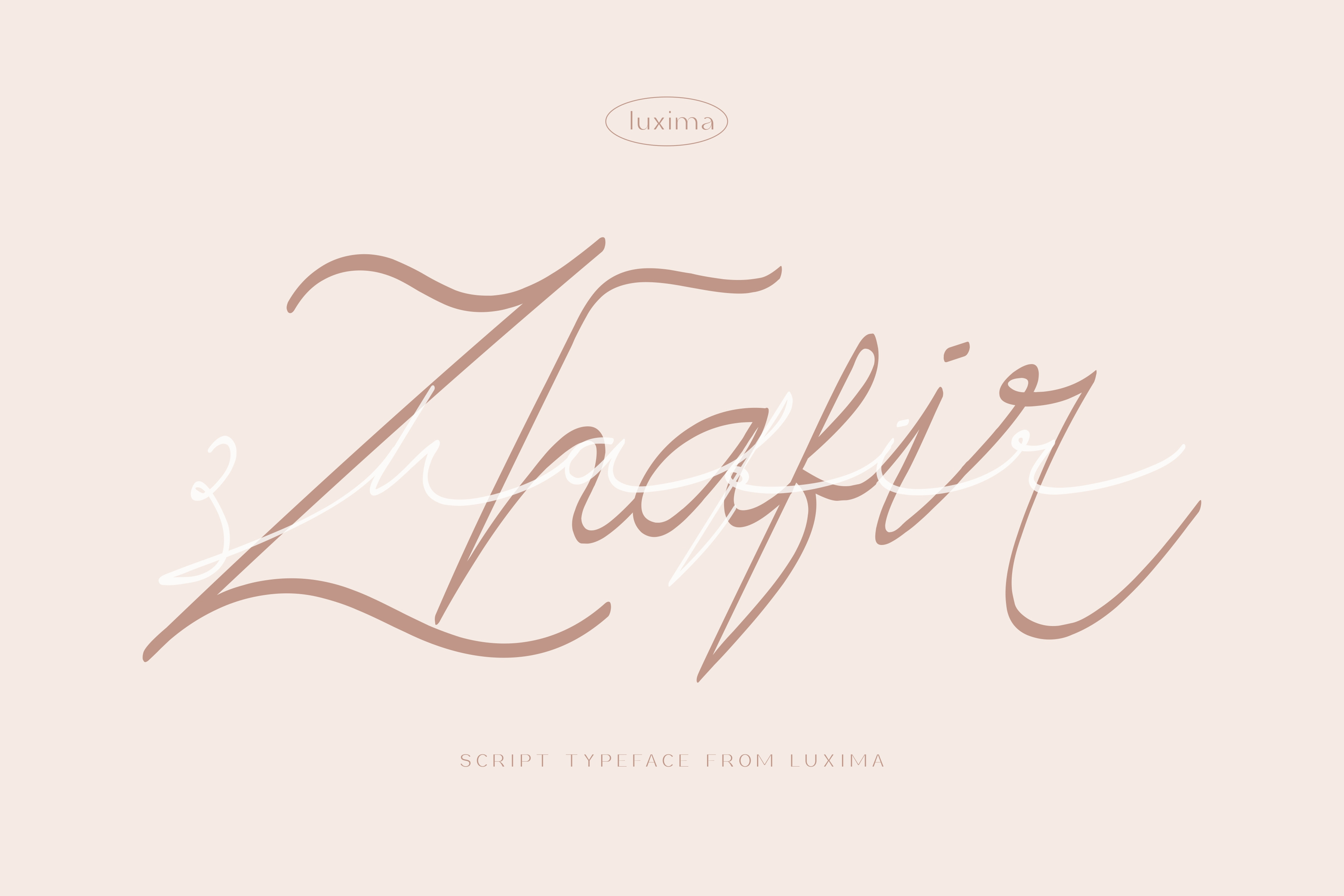
Zhafir Script Font
Zhafir is a simple, unique, and authentic handwritten script typeface. Perfect for branding, writing messages, or logos.
Zhafir consists of uppercase, lowercase, digits, punctuation marks, and five stylistic sets. Total up to 433 characters.